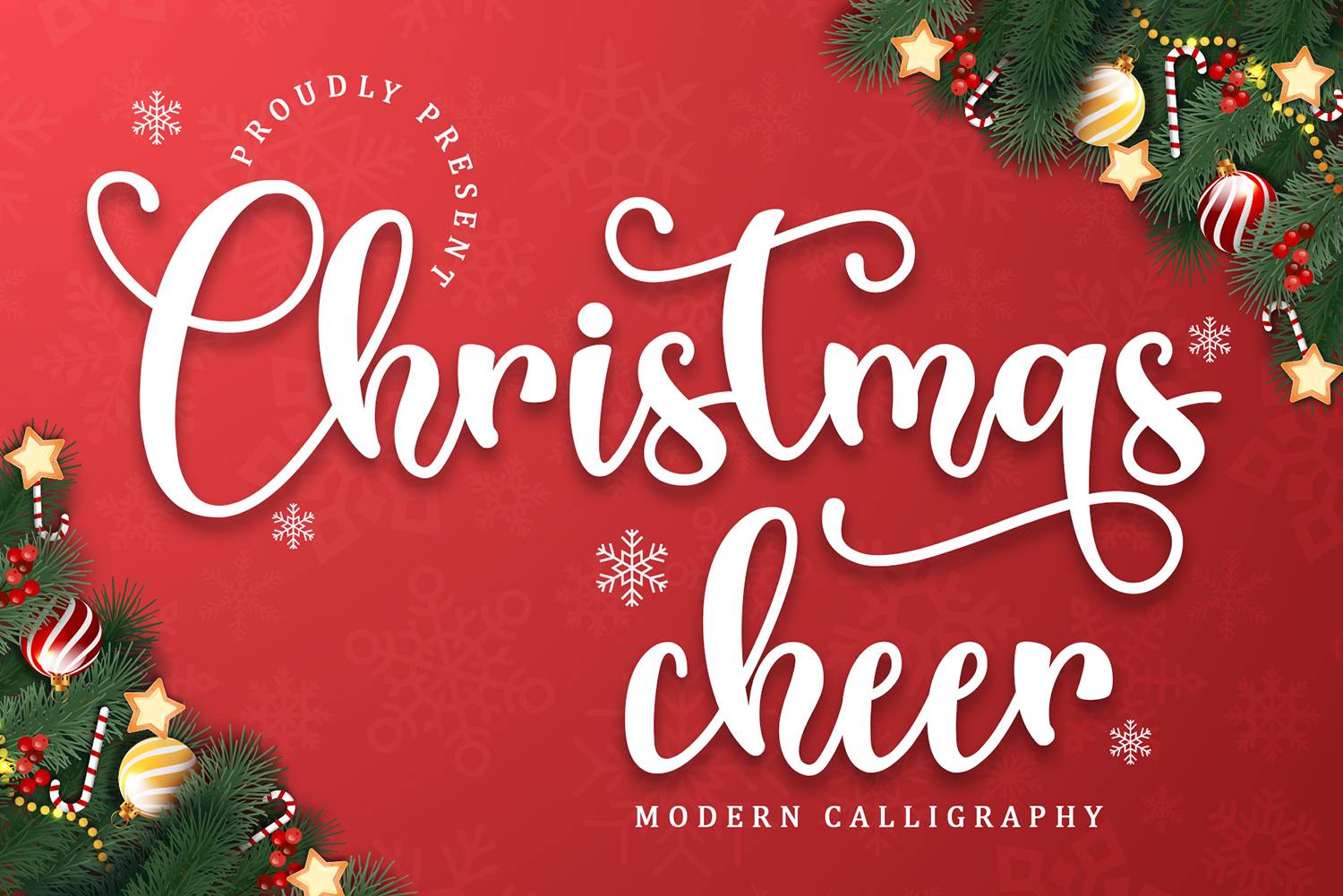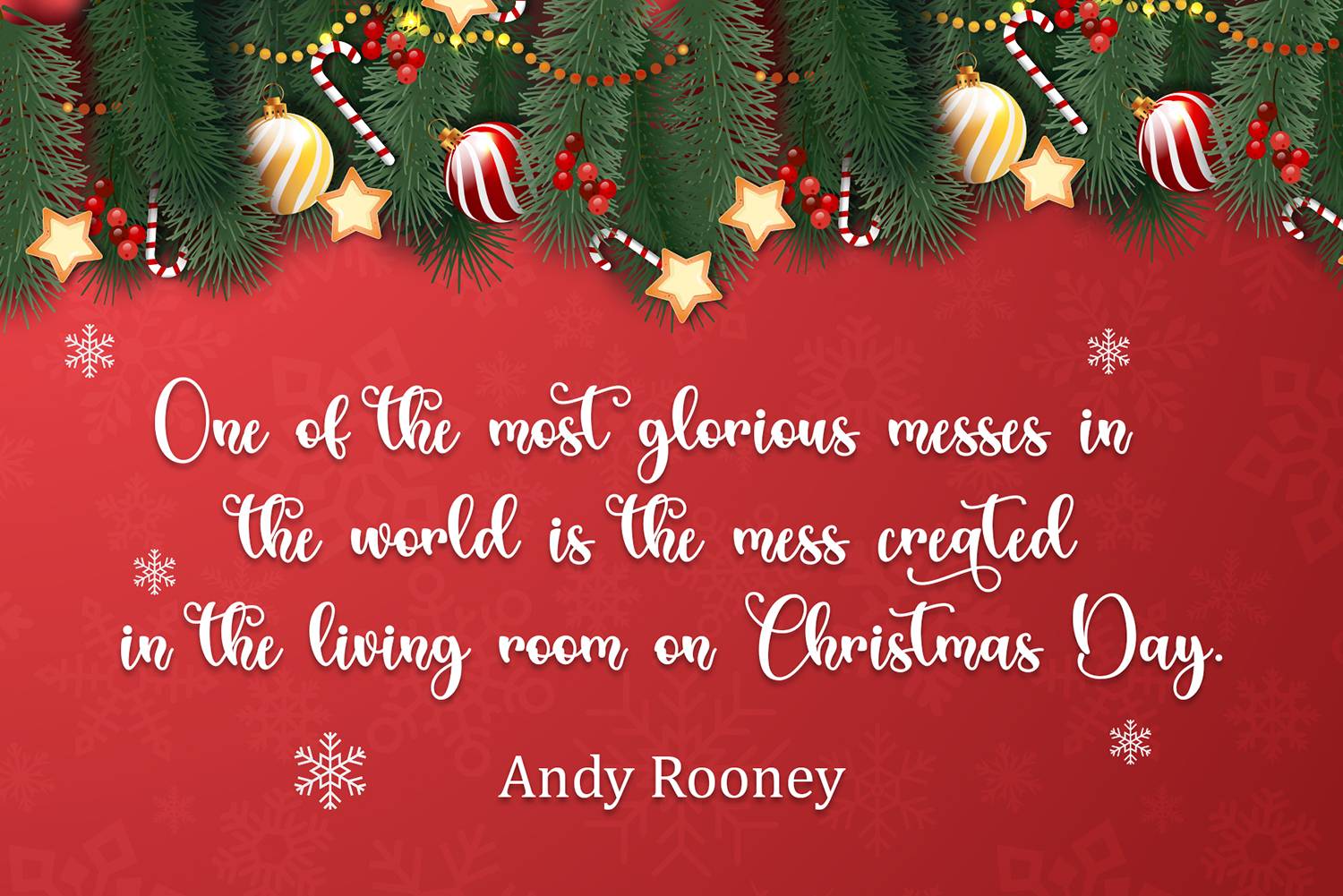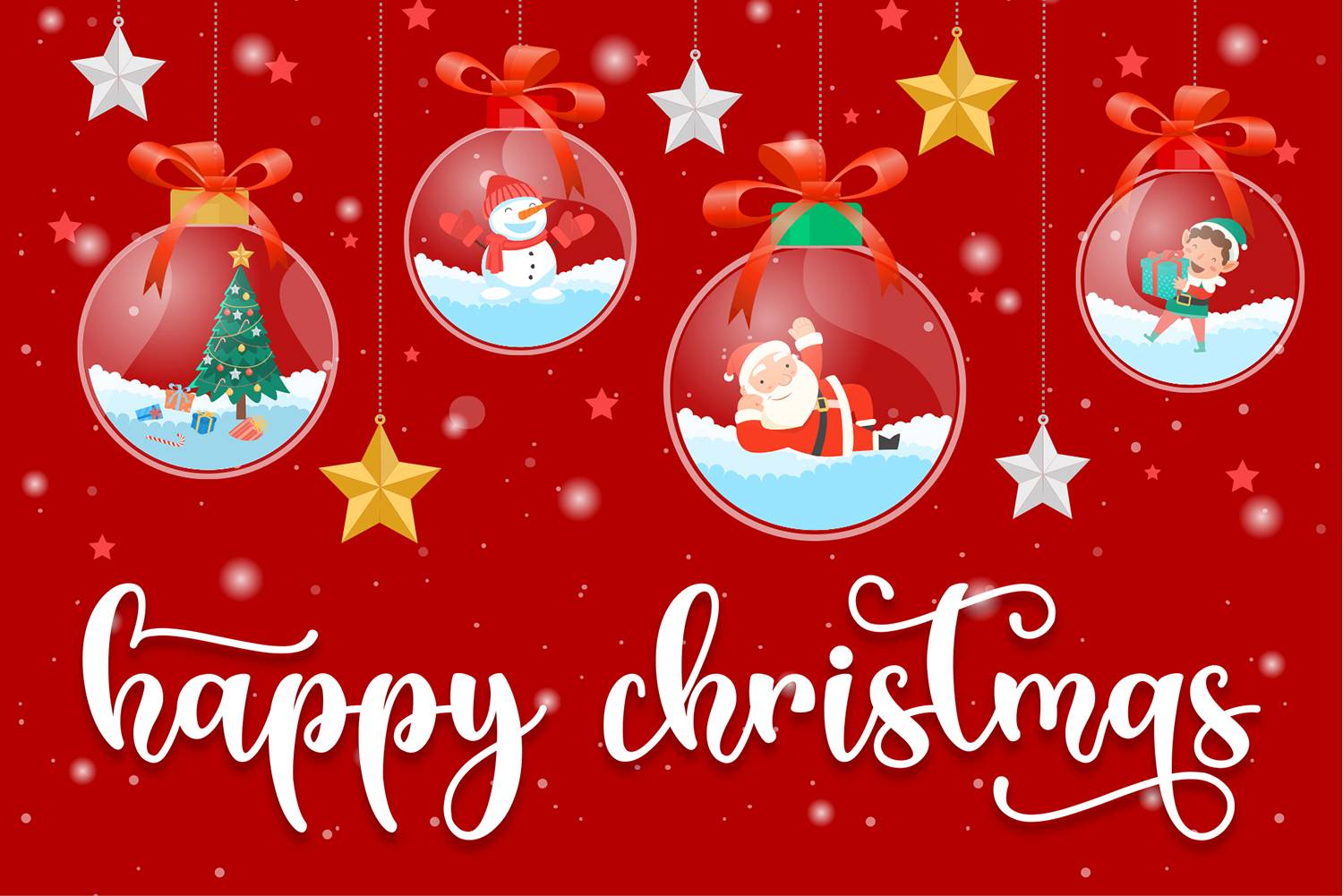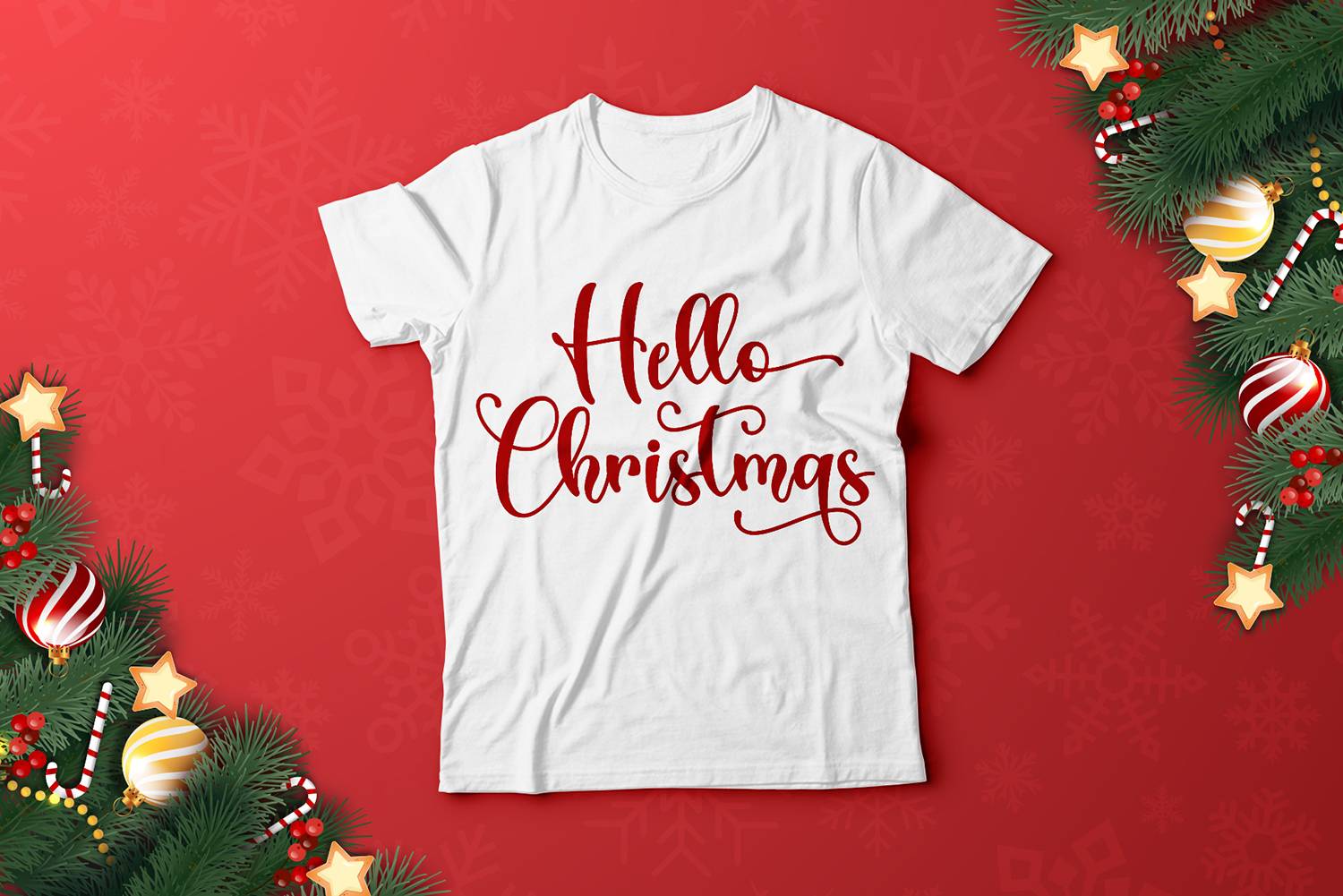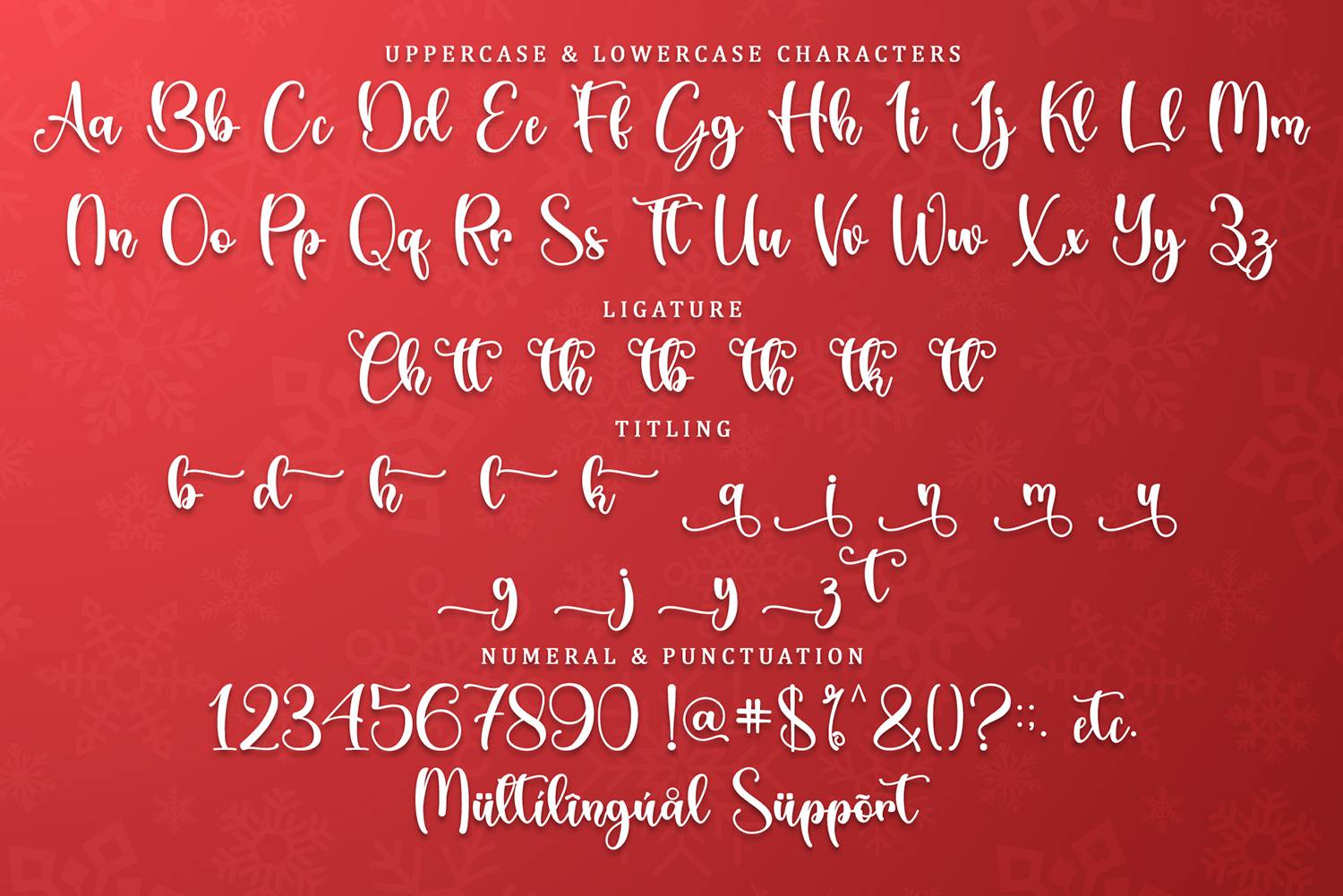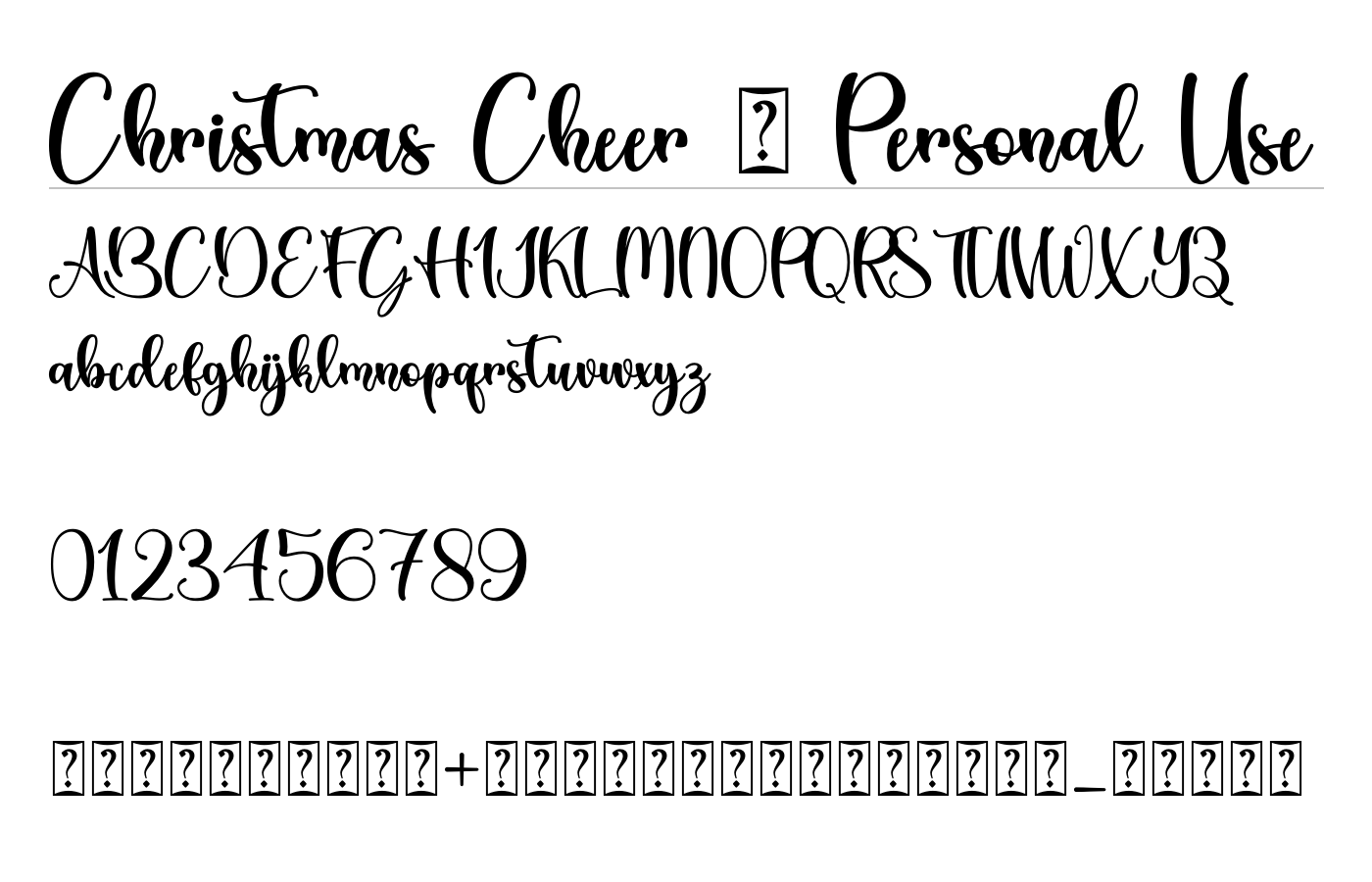
Christmas Cheer is a charming script font that blends casual elegance with a festive, hand-lettered feel. It features smooth, flowing strokes with moderate contrast and playful letterforms, making it perfect for holiday-themed designs, invitations, and cheerful branding that aims to convey warmth and joy. This font works especially well for headlines, logos, and decorative uses where a personal, joyful touch is desired.
Christmas Cheer Font
About Christmas Cheer Font